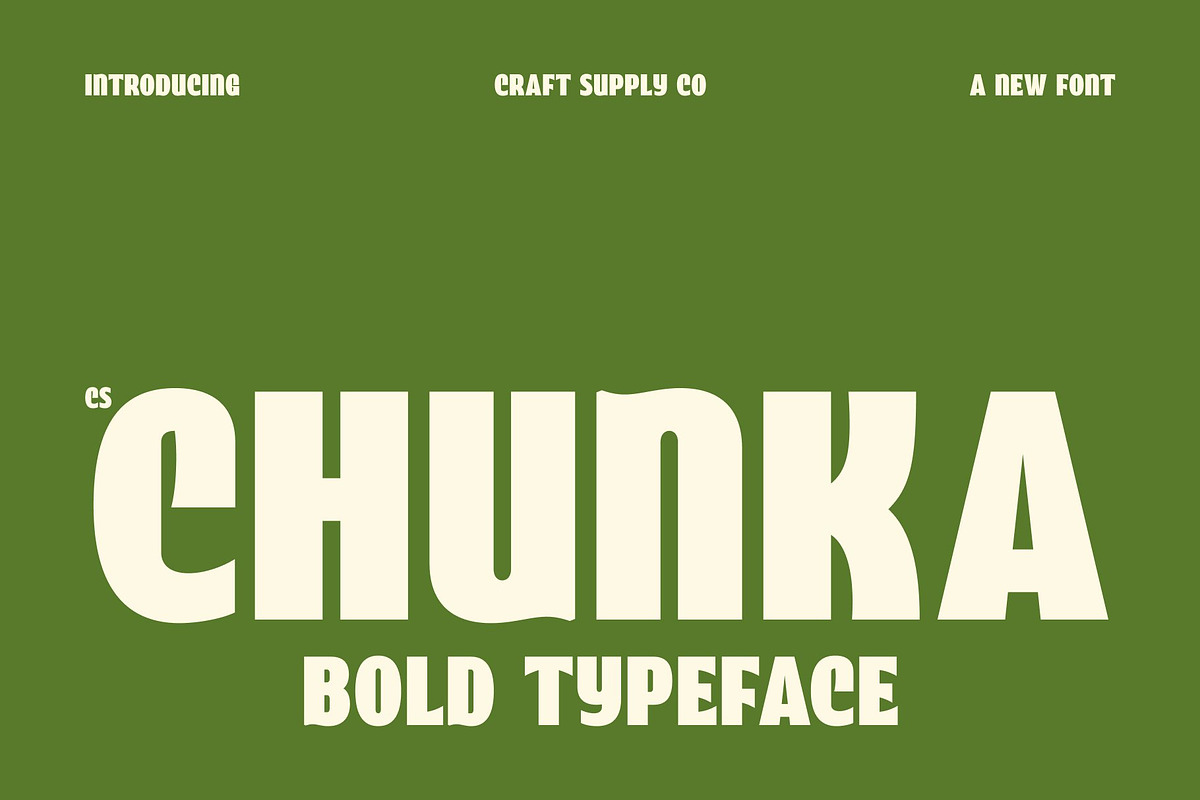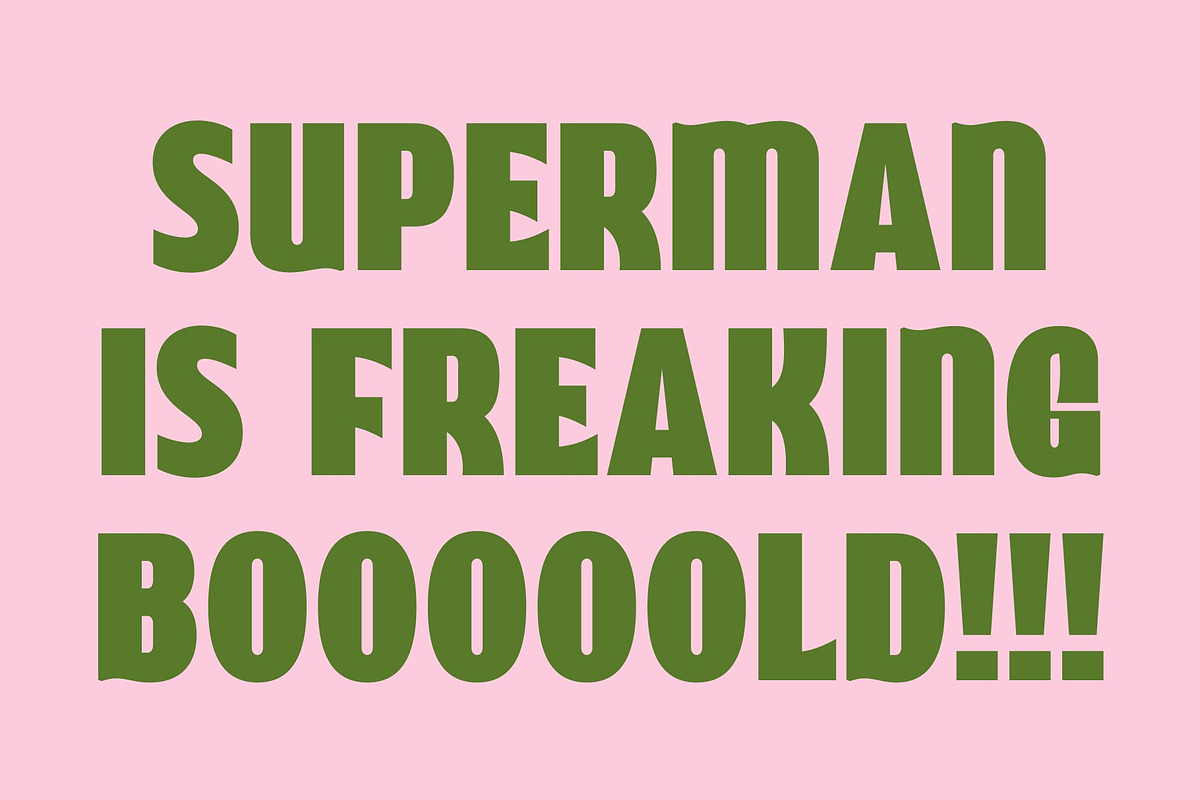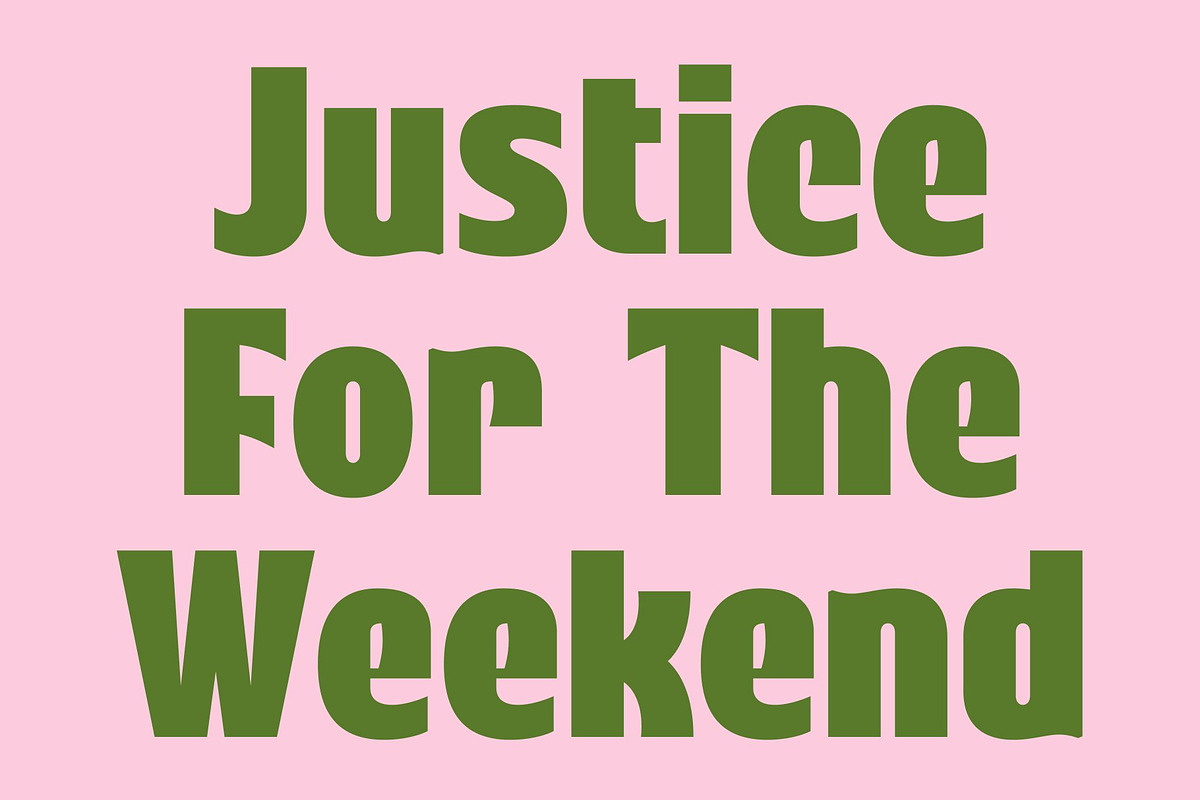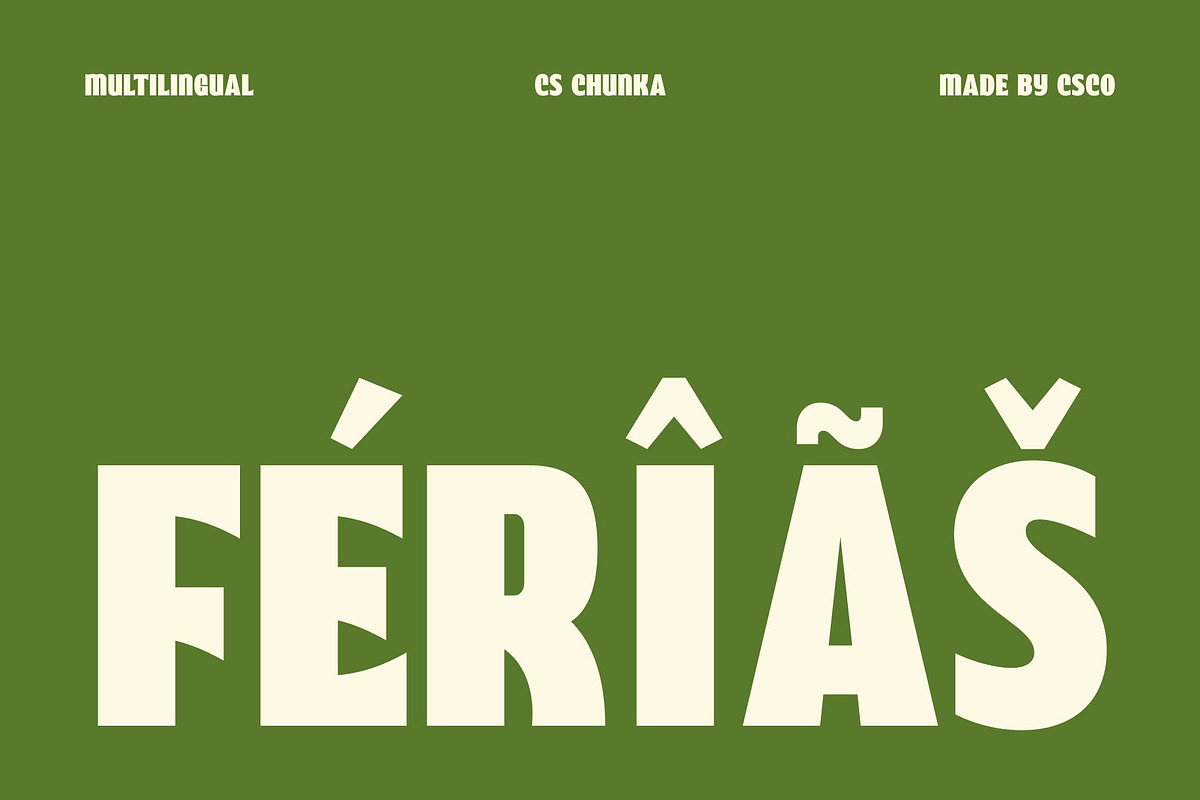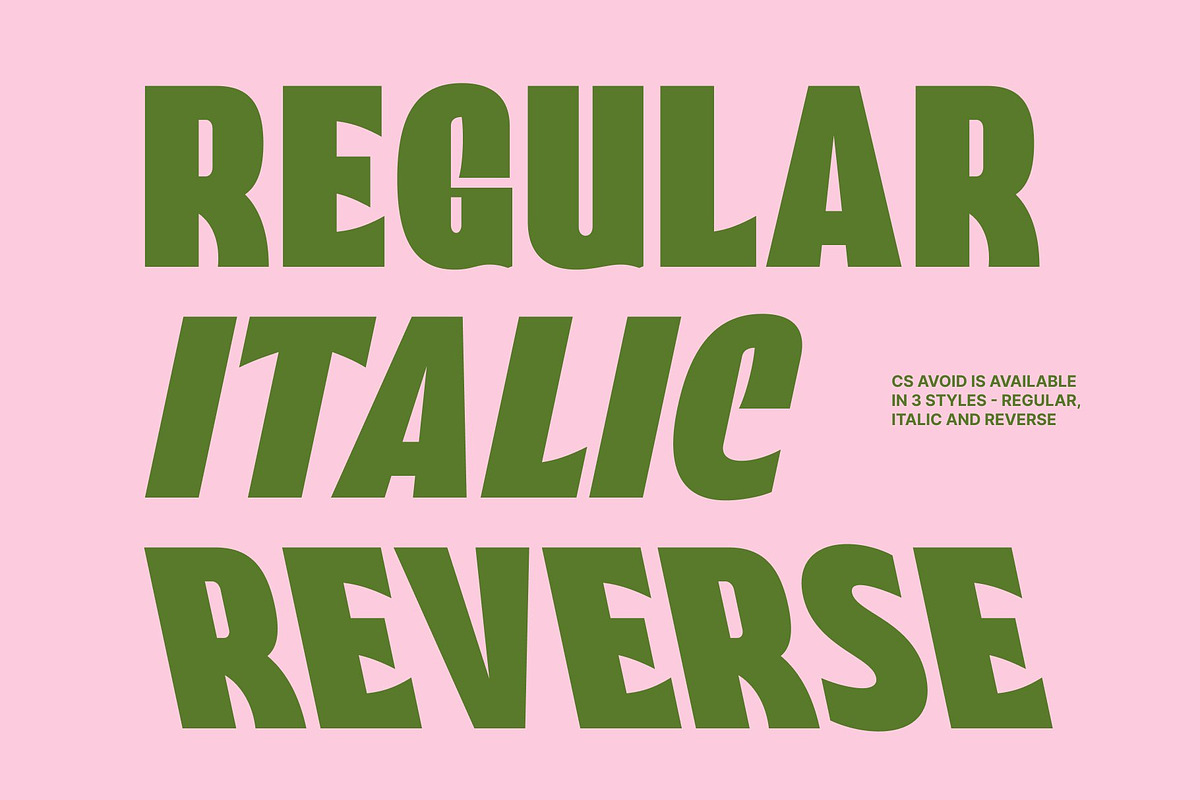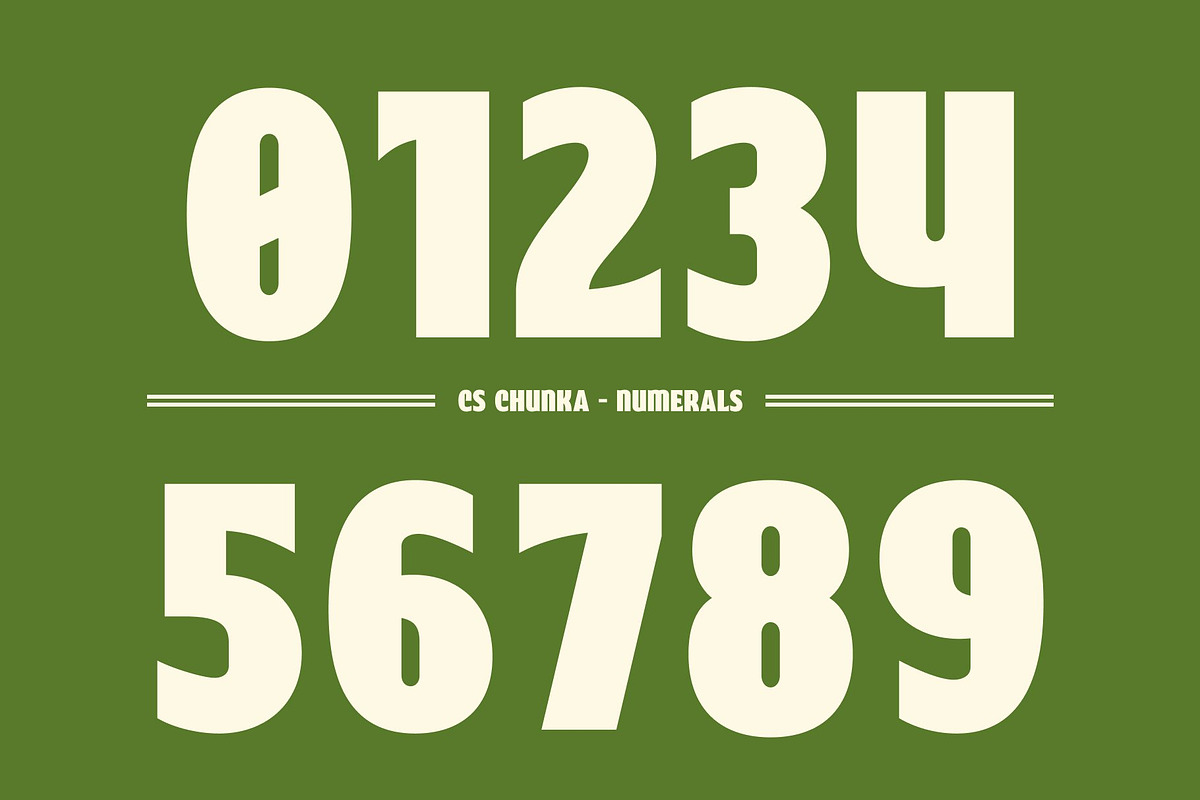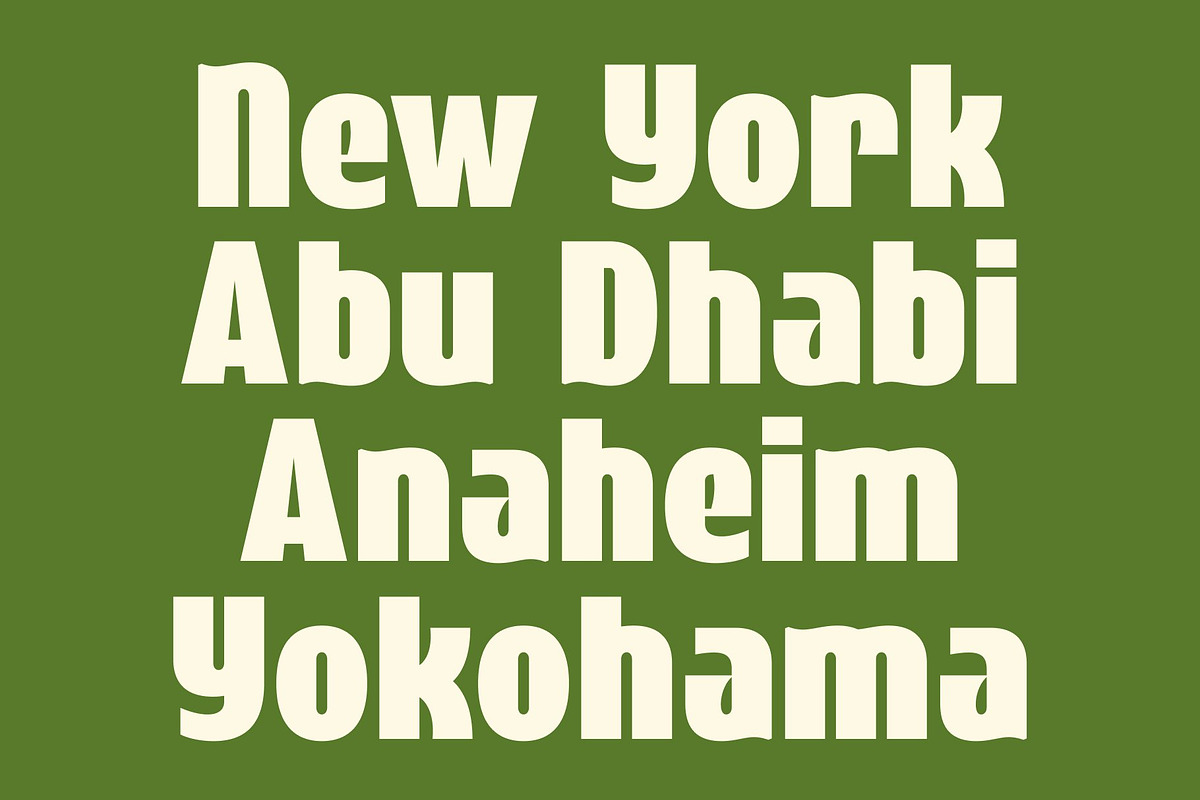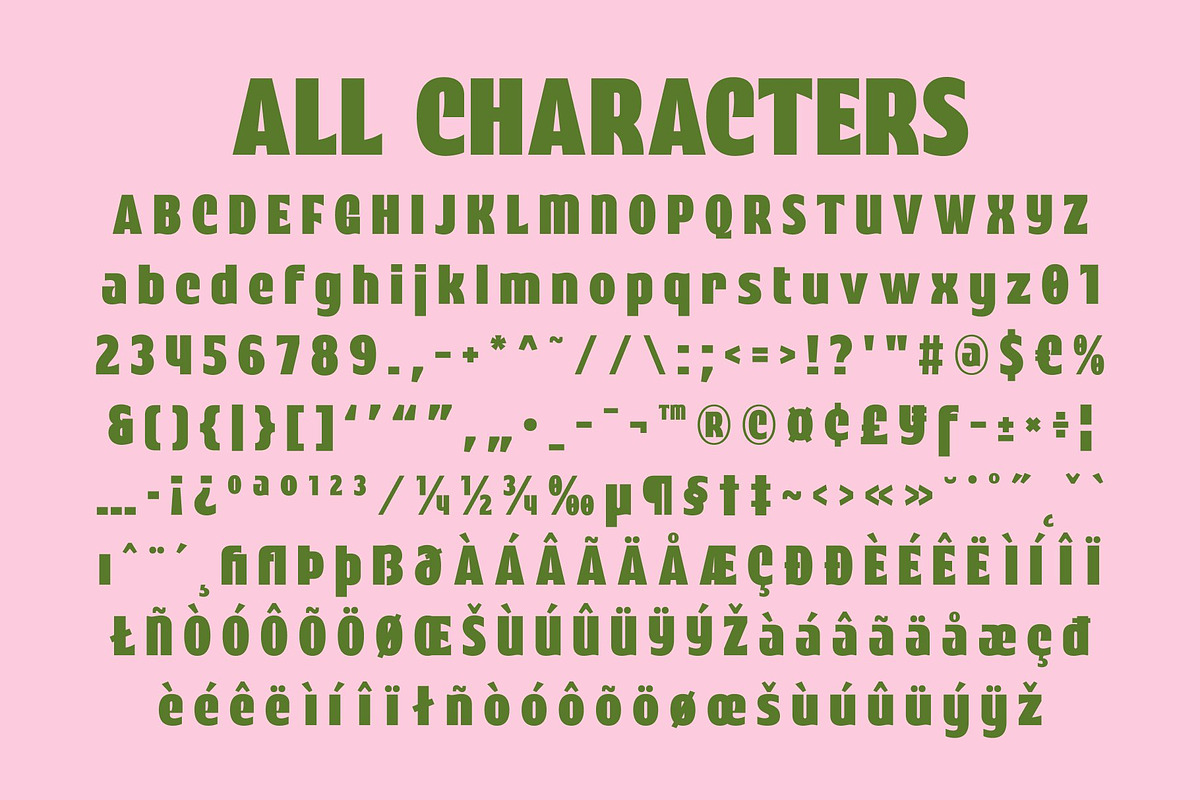
CS Chunka – Bold Sans Serif
CS Chunka – Bold Chunky Sans Serif with Playful Impact
Modern Sans Serif with Fun and Bold Character This is a modern sans serif font designed with a playful, bold, and chunky style that instantly captures attention. Featuring strong letterforms and cheerful proportions, this typeface creates a lively visual presence that feels energetic, friendly, and full of personality. It is crafted for designers who want typography that makes a statement while maintaining a fun and approachable appeal.
Chunky Forms with Playful Energy The defining feature of lies in its thick, bold construction and expressive shapes. Its chunky letterforms create a powerful visual impact, while the playful design adds warmth and character to every composition. This combination makes the font feel dynamic and engaging, perfect for projects that aim to stand out.
Bold Style with Modern Versatility This font balances strong visual weight with clean sans serif simplicity, resulting in a typeface that is both eye-catching and versatile. Its modern structure ensures readability across a variety of display applications, while its playful personality brings creativity and excitement to any design. The result is typography that feels confident, fresh, and memorable.
Perfect for Displays, Branding, and Posters From bold titles and creative branding to posters, packaging, and promotional materials, this font offers a versatile typographic solution. Its combination of chunky forms, playful charm, and modern style ensures your designs feel energetic, distinctive, and visually impactful.
CS Chunka Regular
CS Chunka Italic
CS Chunka Reverse Italic